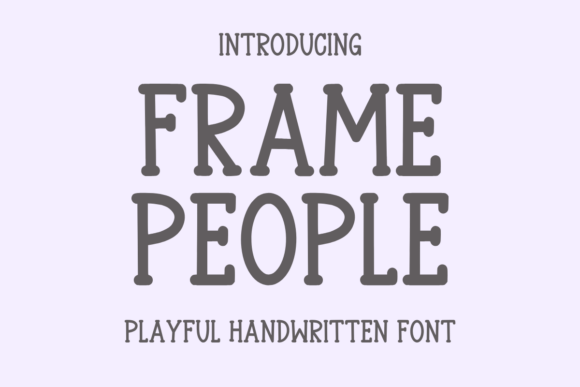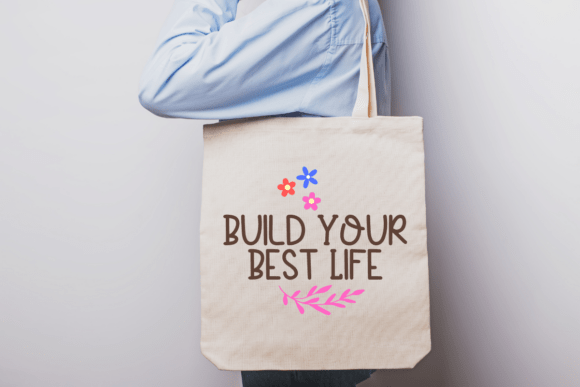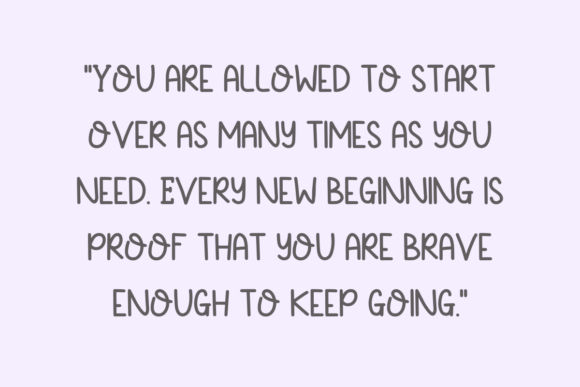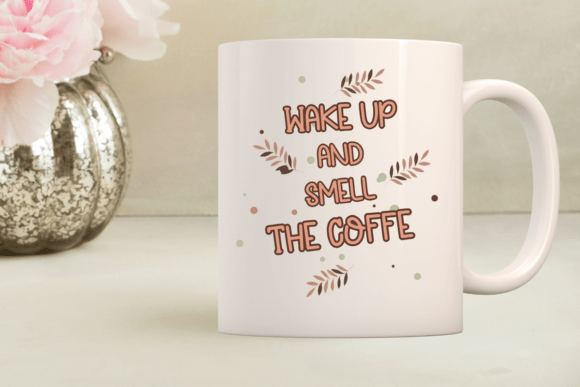
Frame People Font: Cute Handwritten Font for Cricut & DIY Projects!
About the Frame People Font
Crafted with precision, the Frame People Font is ready to bring your ideas to life. Frame People is a playful handwritten font that’s perfect for crafts, planners, KDP, stickers, greeting cards, and more. With its cute and friendly style, it works great for Cricut, sublimation, and creative DIY projects. Ideal for crafters, designers, and makers!
Its friendly, informal style makes it ideal for branding projects targeting younger demographics or businesses with a playful, approachable image. Consider using it for logos, short taglines, and social media graphics. However, avoid using Frame People for large blocks of text or body copy; its handwritten nature makes it less legible at smaller sizes.
Frame People pairs well with clean sans-serif fonts like Open Sans or Lato for a balanced contrast. For a more sophisticated look, consider pairing it with a delicate serif font such as Playfair Display. Avoid pairing it with other highly decorative or script fonts, as this can create visual clutter.
The overall personality is light-hearted and approachable, conveying a sense of warmth and approachability.
Frame People Font Usage Examples
Frame People Font Example